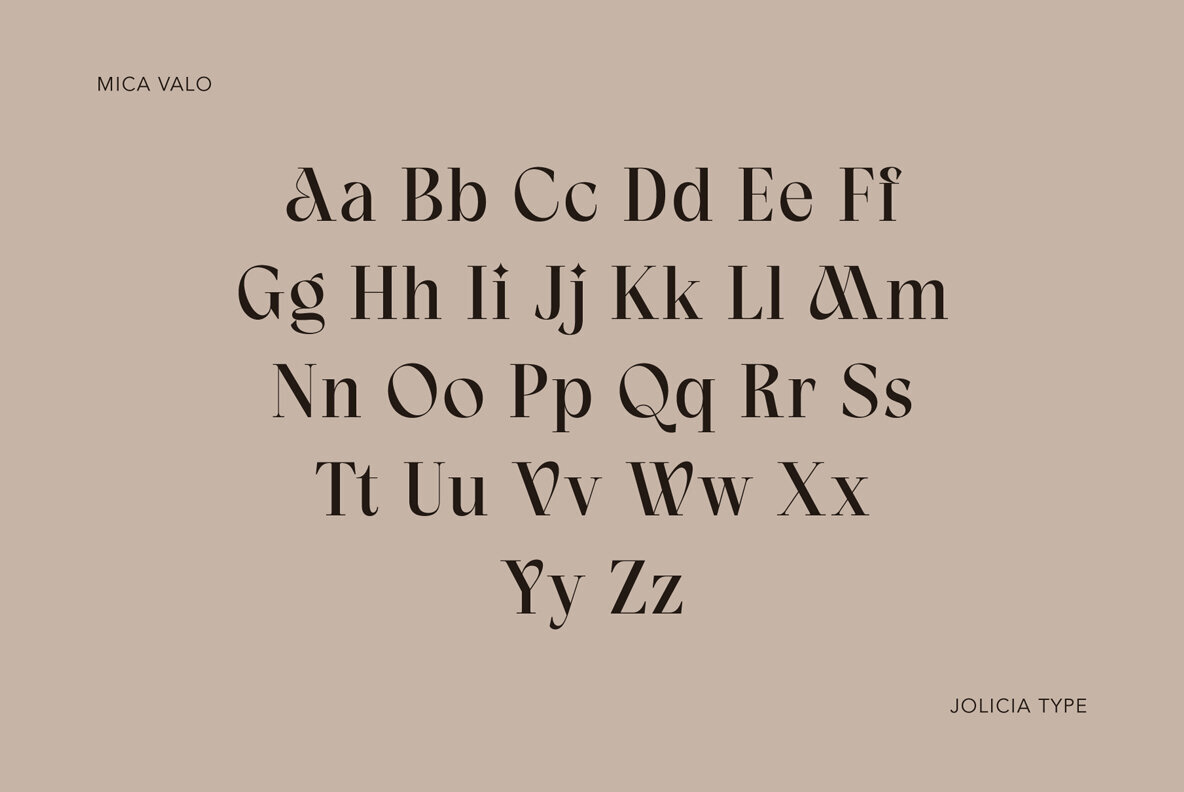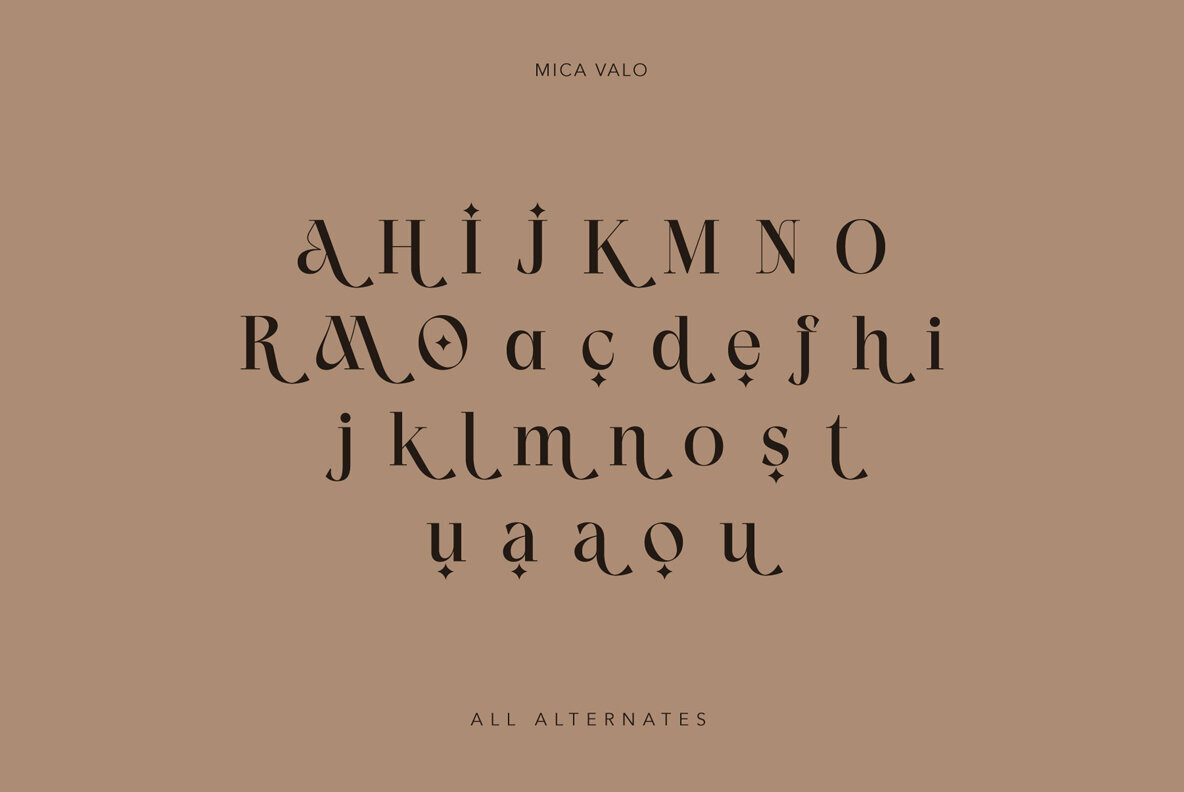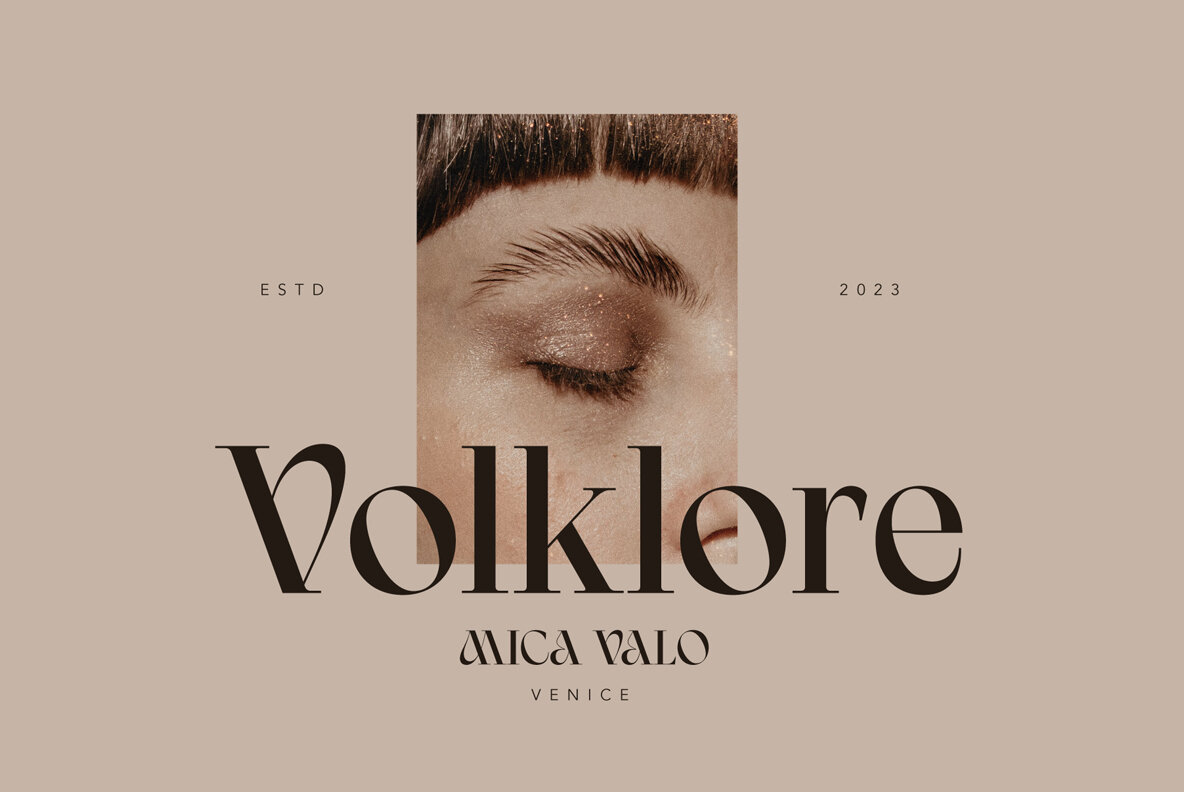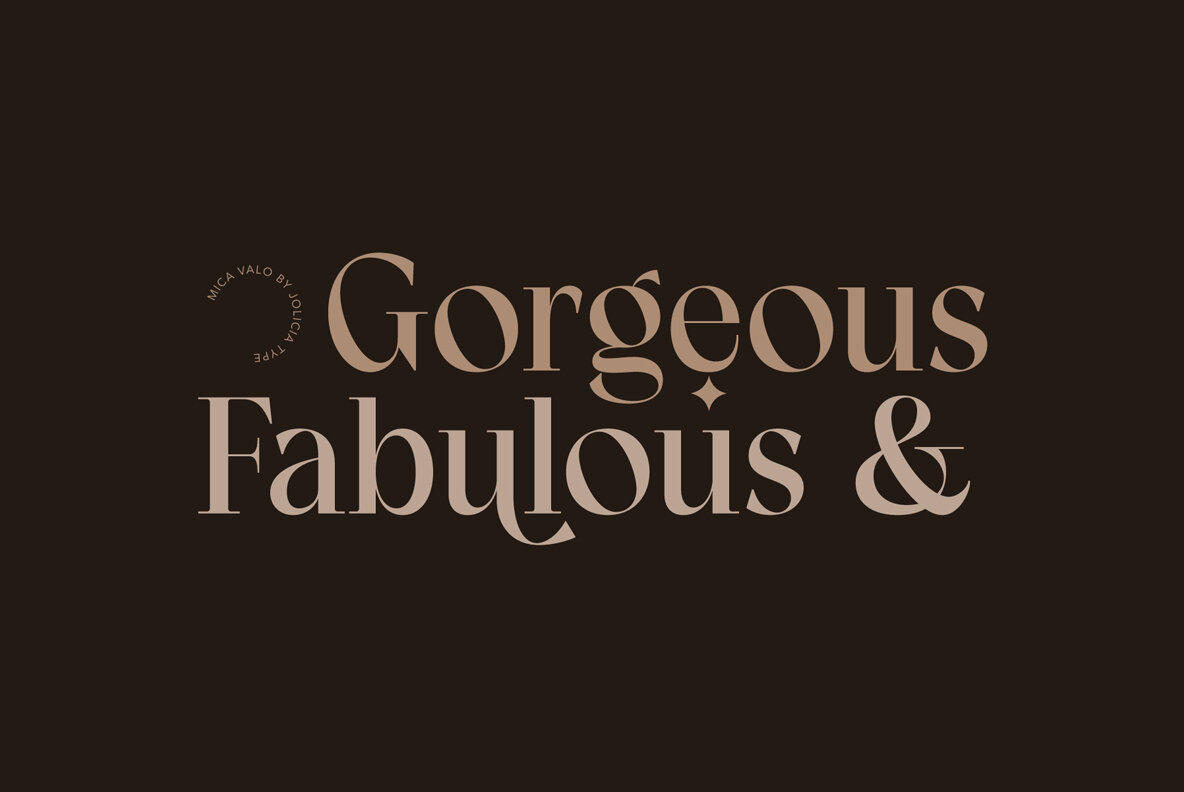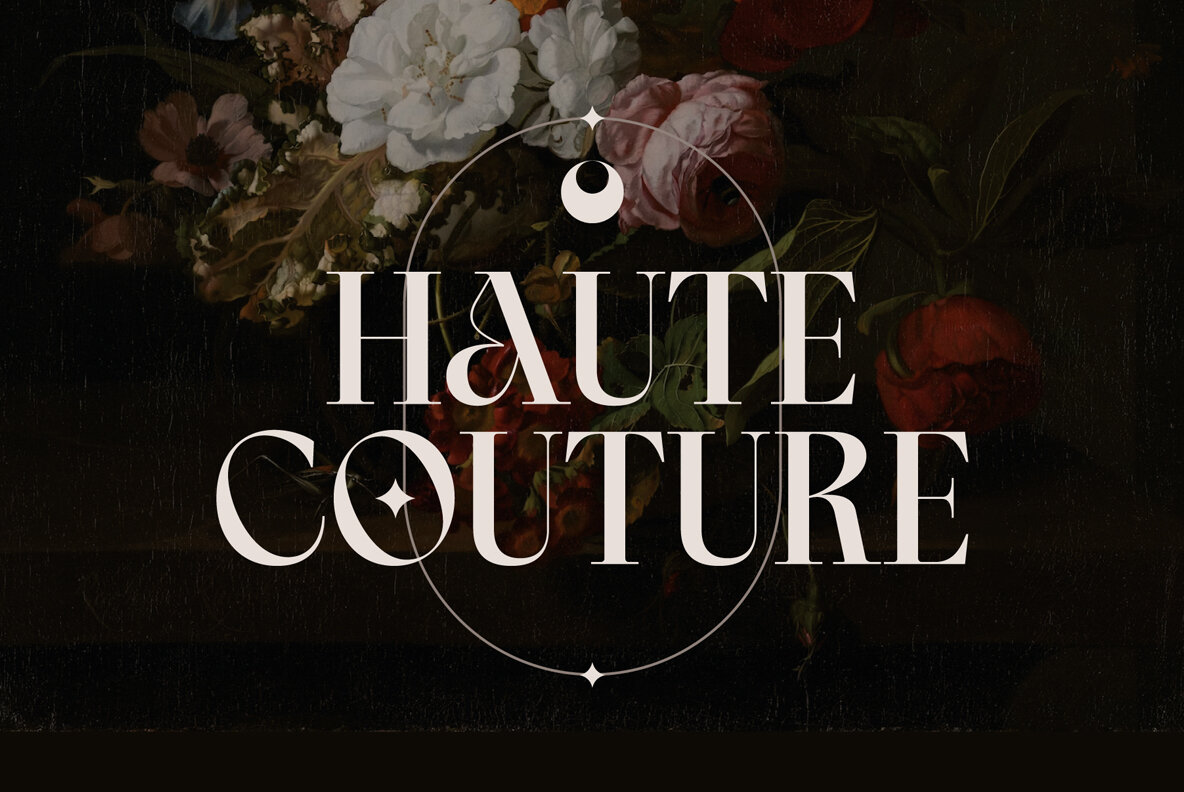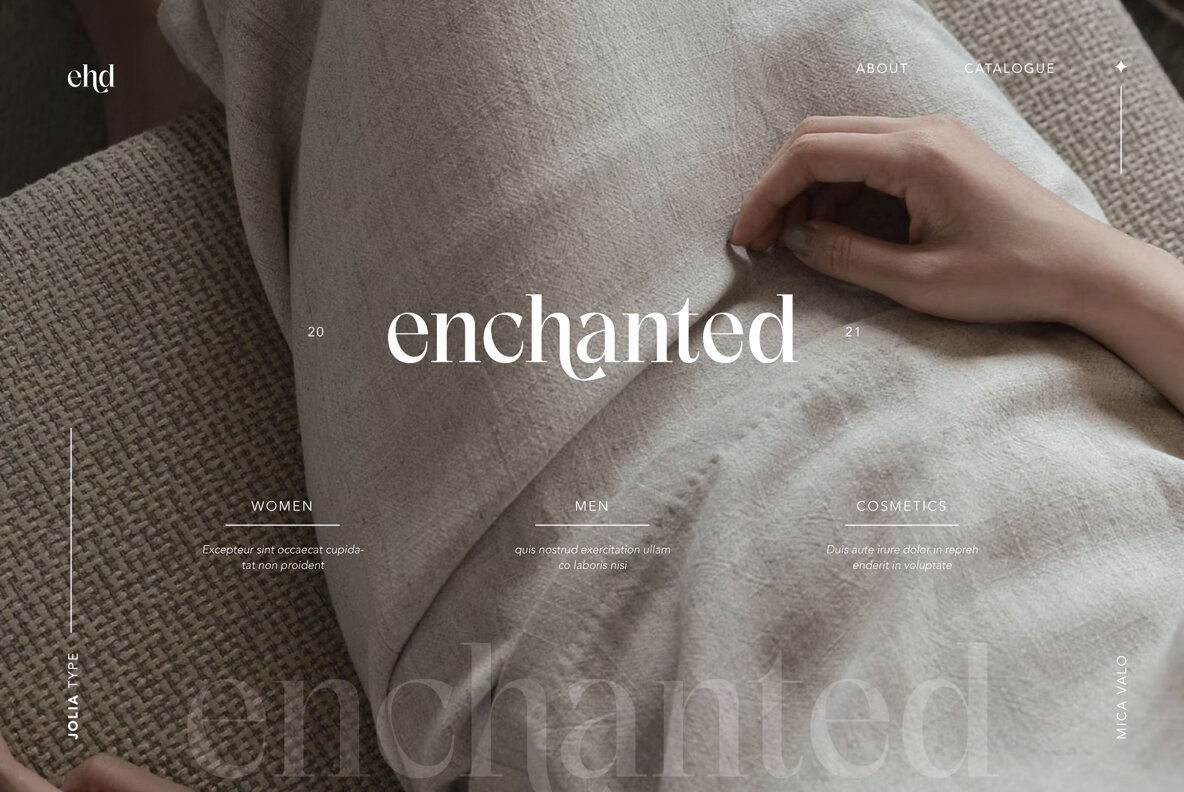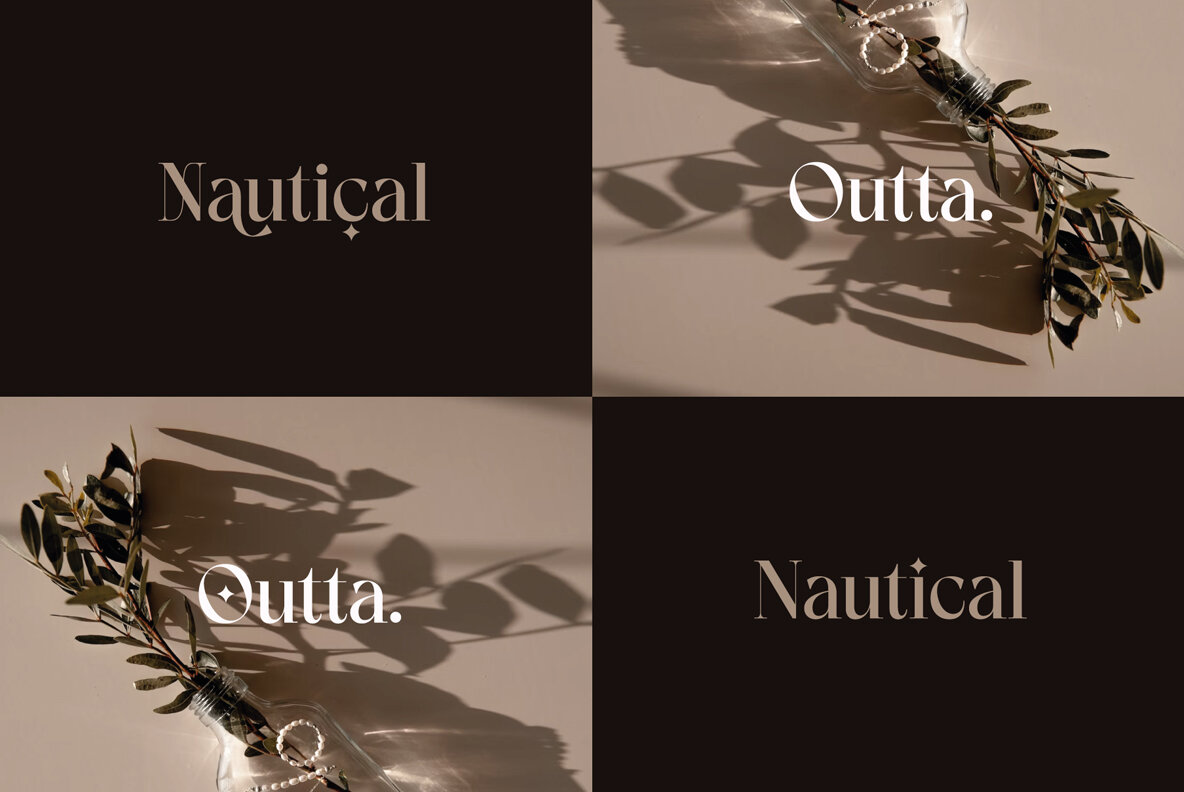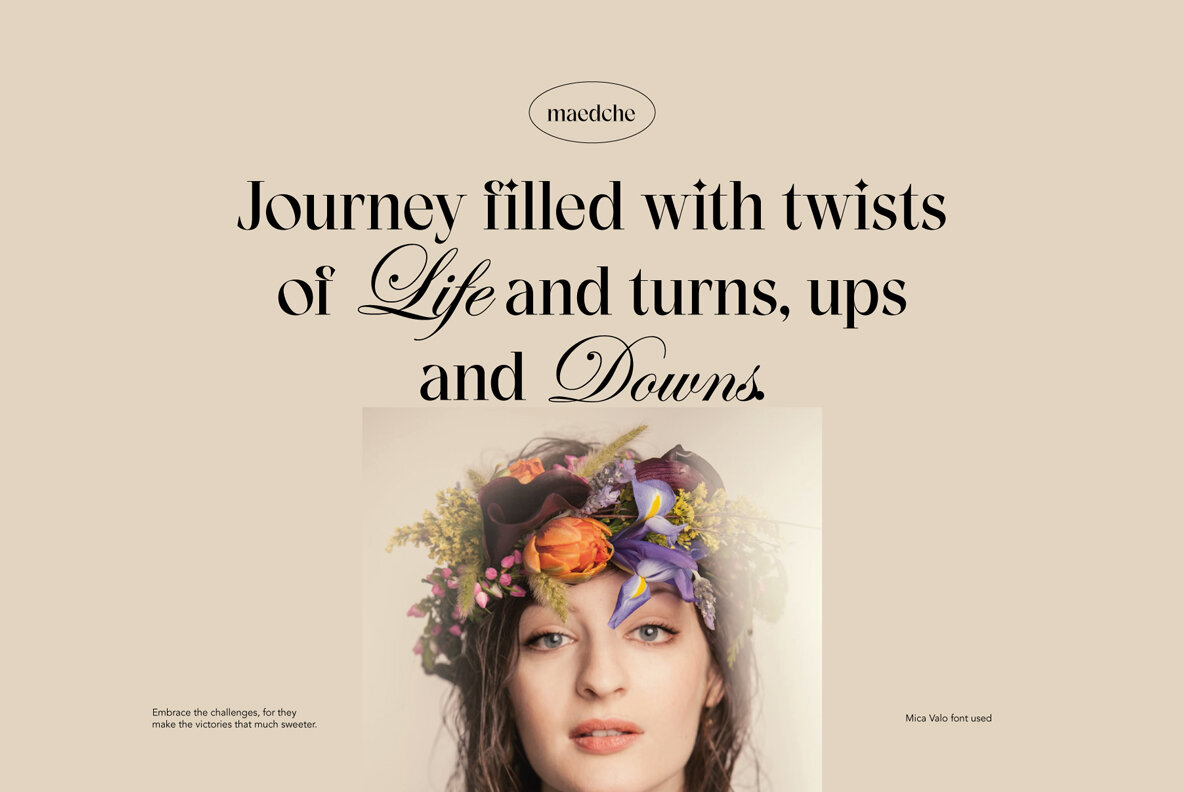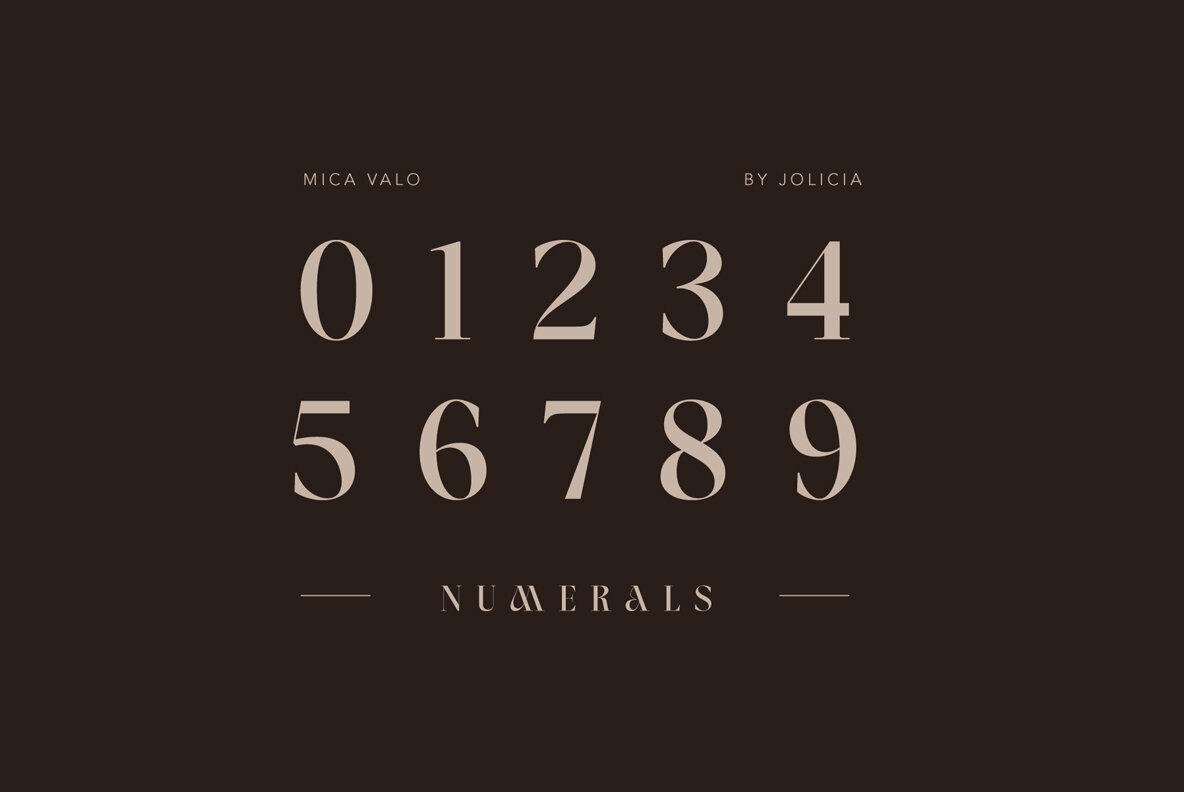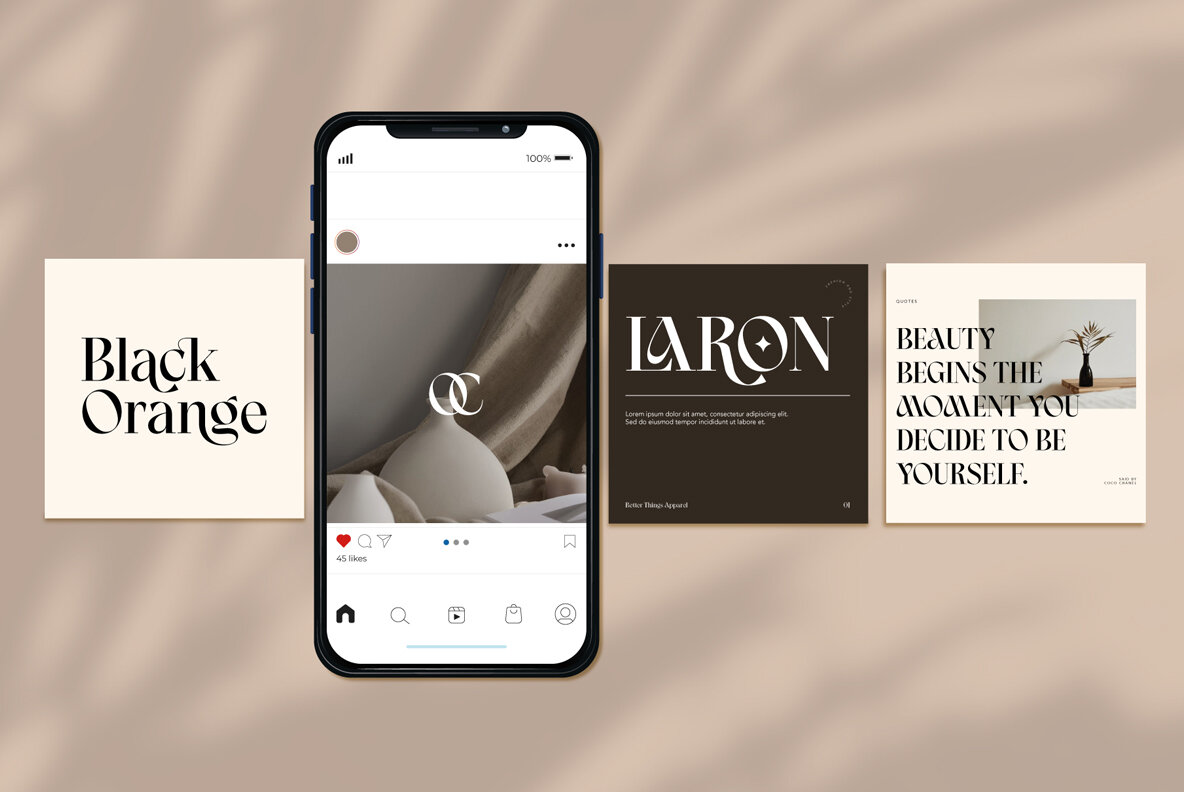
Mica Valo Font
Mica Valo Regular
Mica Valo is a sophisticated serif font that exudes timeless elegance and refinement. Its graceful curves and meticulous detailing make it the perfect choice for projects that demand a touch of class. The inspiration for Mica Valo is drawn from the seamless marriage of classic serif aesthetics and a modern sensibility. The result is a font that transcends time, adding a touch of grace and poise to any visual composition. What sets Mica Valo apart is its Alternate version, which introduces a unique twist to the classic serif style. The alternates offer a subtle variation in letterforms, providing designers with the flexibility to experiment and create distinct, personalized looks. This feature makes Mica Valo an ideal choice for branding, editorial design, and other creative projects where a touch of individuality is desired. Incorporate Mica Valo into your creative toolkit and let its elegant vibes and alternate options elevate your designs to new heights, leaving a lasting impression on your audience.